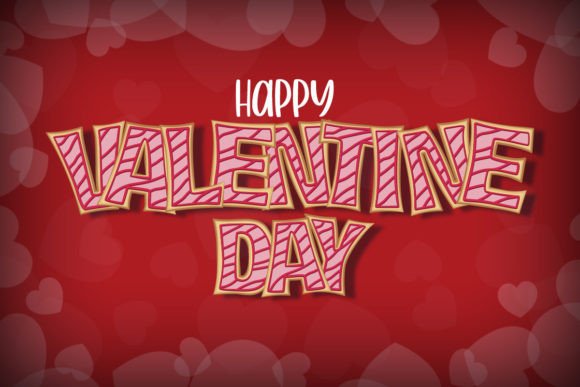
Welcome to the world of Happy Valentine Day Font, a colorful font family that radiates joy and captures hearts. Step into a realm where creativity blossoms and designs come alive, powered by this eye-catching and meticulously crafted font.
Immerse yourself in the vibrant hues and intricate details of Happy Valentine Day, a font that transcends ordinary typography. Whether you're a seasoned designer or just starting your creative journey, this font is your gateway to captivating designs that leave a lasting impression.
With Happy Valentine Day Font, your imagination knows no bounds. Create stunning wall displays that transform your space into an art gallery, craft heartfelt wedding invitations that set the tone for a magical celebration, or design social media posts that captivate your audience. Unleash your creativity for advertisements that command attention, product packaging that exudes elegance, or product designs that ignite passion.
Elevate your visual storytelling with Happy Valentine Day Font. Its versatility knows no limits, extending to labels that add a touch of sophistication, photography that radiates emotion, watermarks that protect your work, and invitations that hint at the beauty of the occasion.
Join the creative revolution with Happy Valentine Day Font. Personalize your stationery with a unique touch, design logos that leave a mark, or create eye-catching typography for your website. The possibilities are endless, and the beauty is in the details.